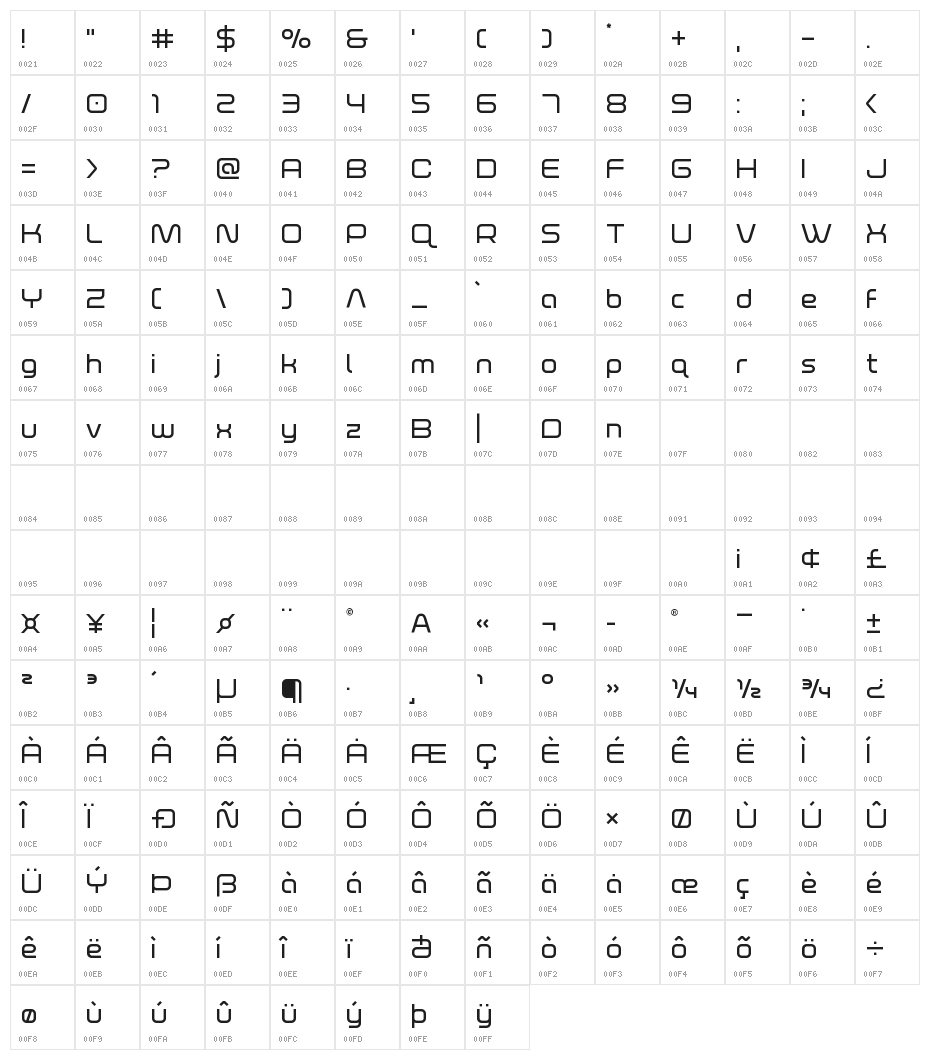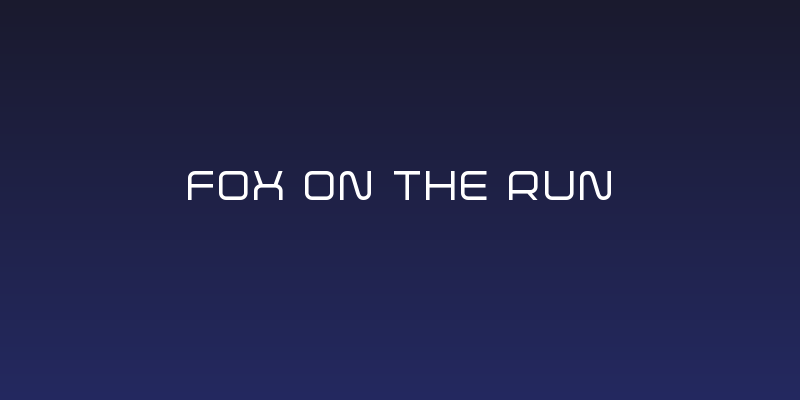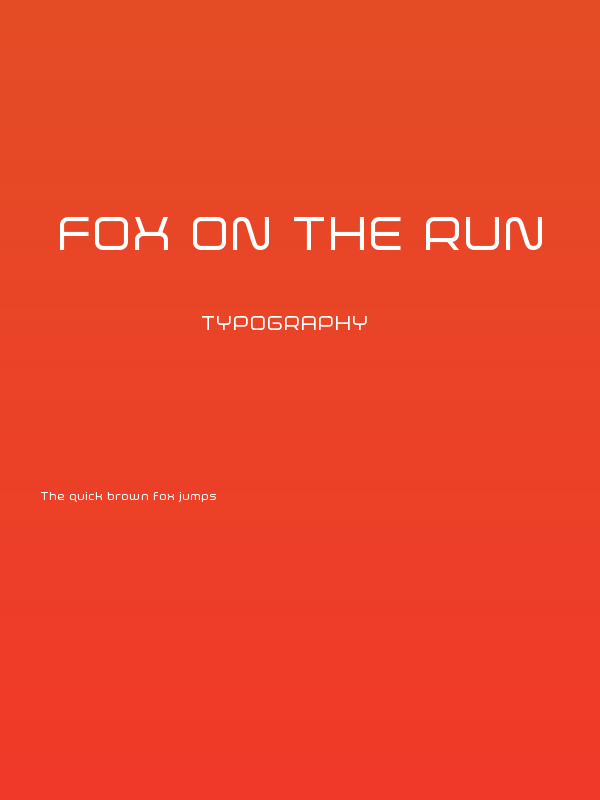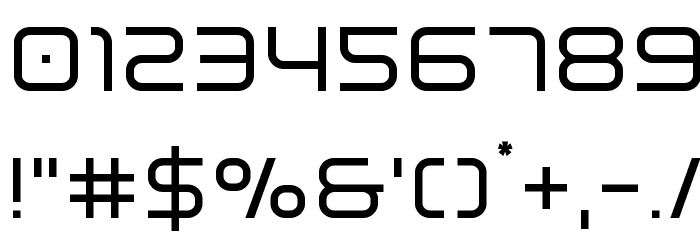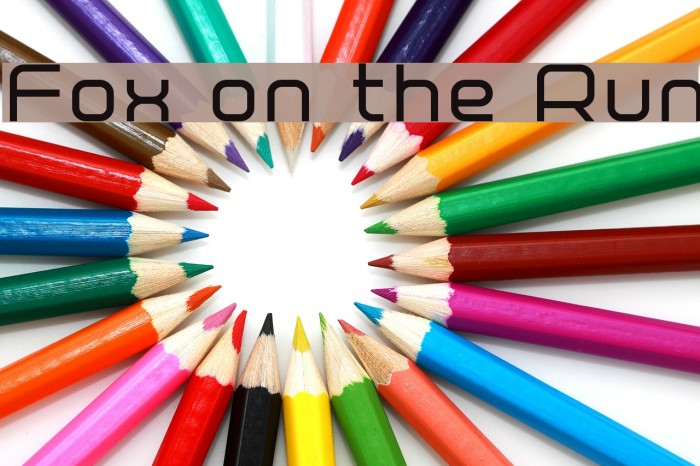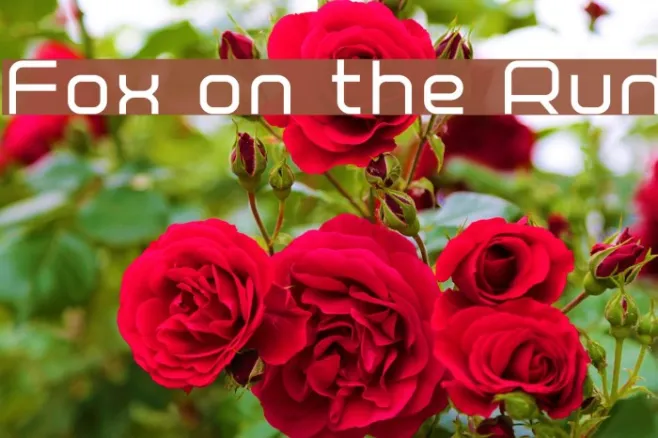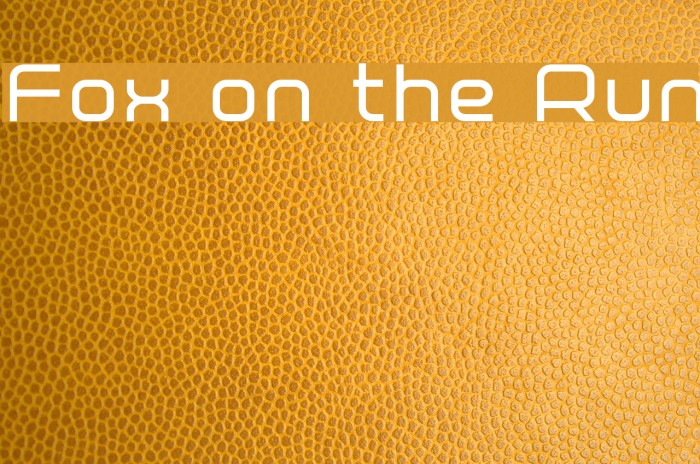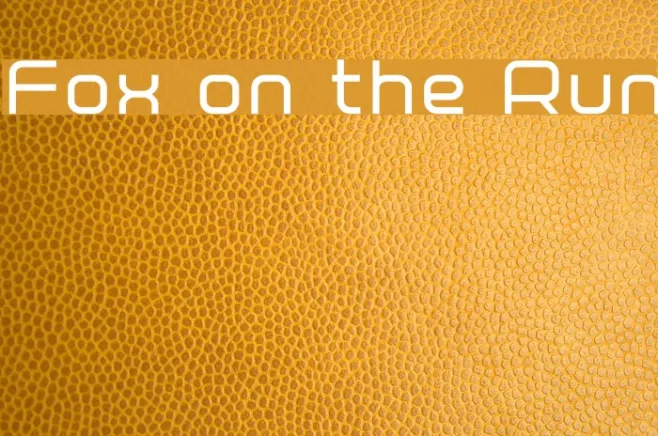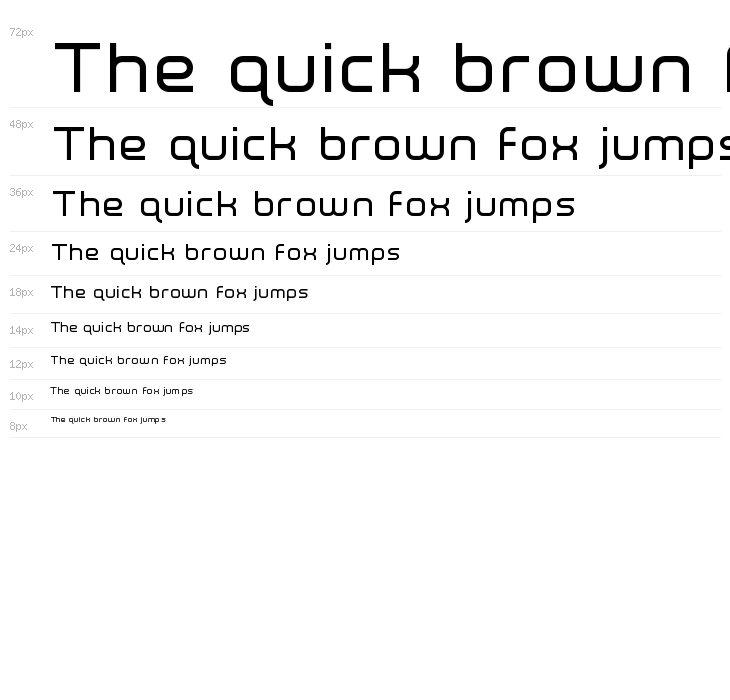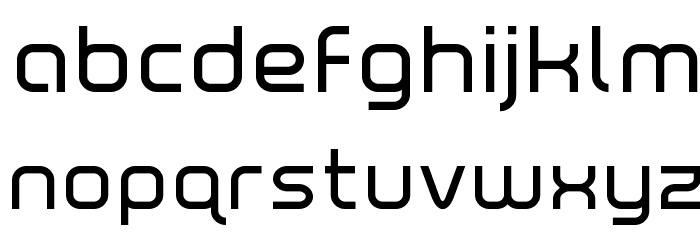
Fox on the Run Font
Fox on the Run Description
This font features a modern and sleek design with a geometric structure. The characters are uniform and balanced, with a consistent stroke width that gives it a clean and contemporary appearance. The uppercase letters are bold and assertive, while the lowercase letters maintain a smooth and rounded form. The numerals are clear and easy to read, making them suitable for digital displays. Special characters are designed with the same geometric precision, ensuring a cohesive look across all elements. This font is ideal for projects that require a futuristic or tech-oriented aesthetic.
| Use Case | Headlines, Digital displays, Branding |
| Proposed Projects | Ideal for tech branding, digital interfaces, and modern advertising campaigns. |